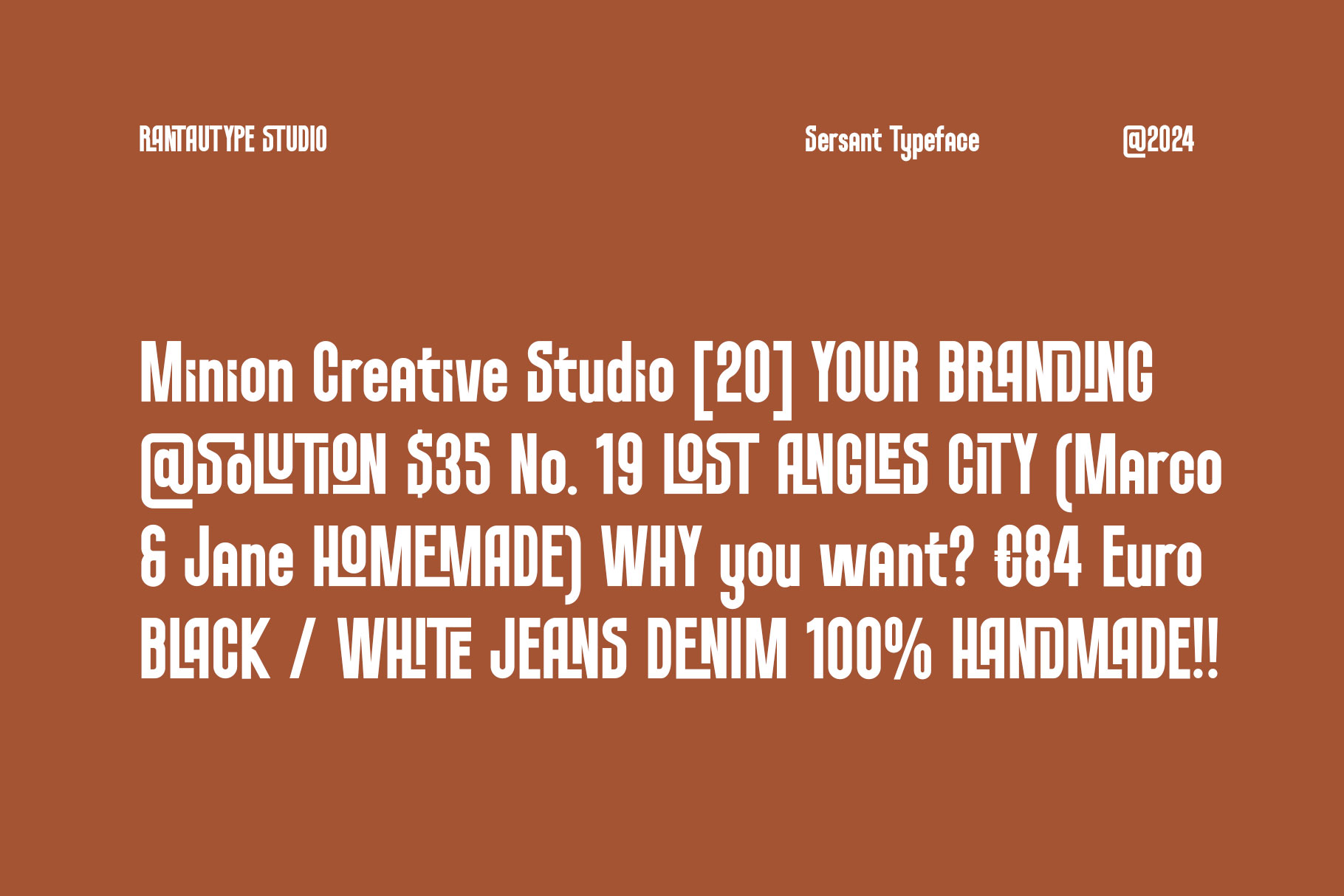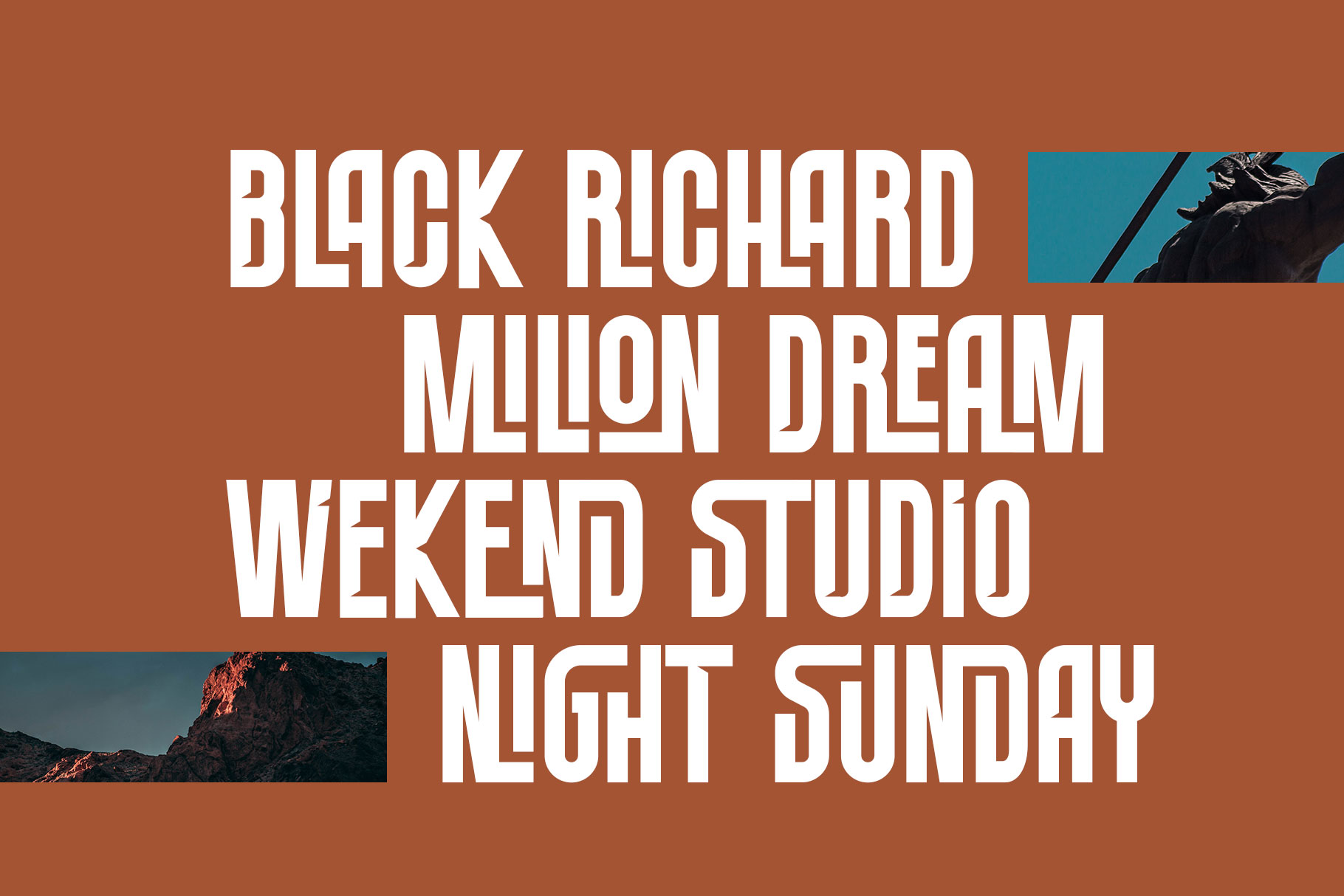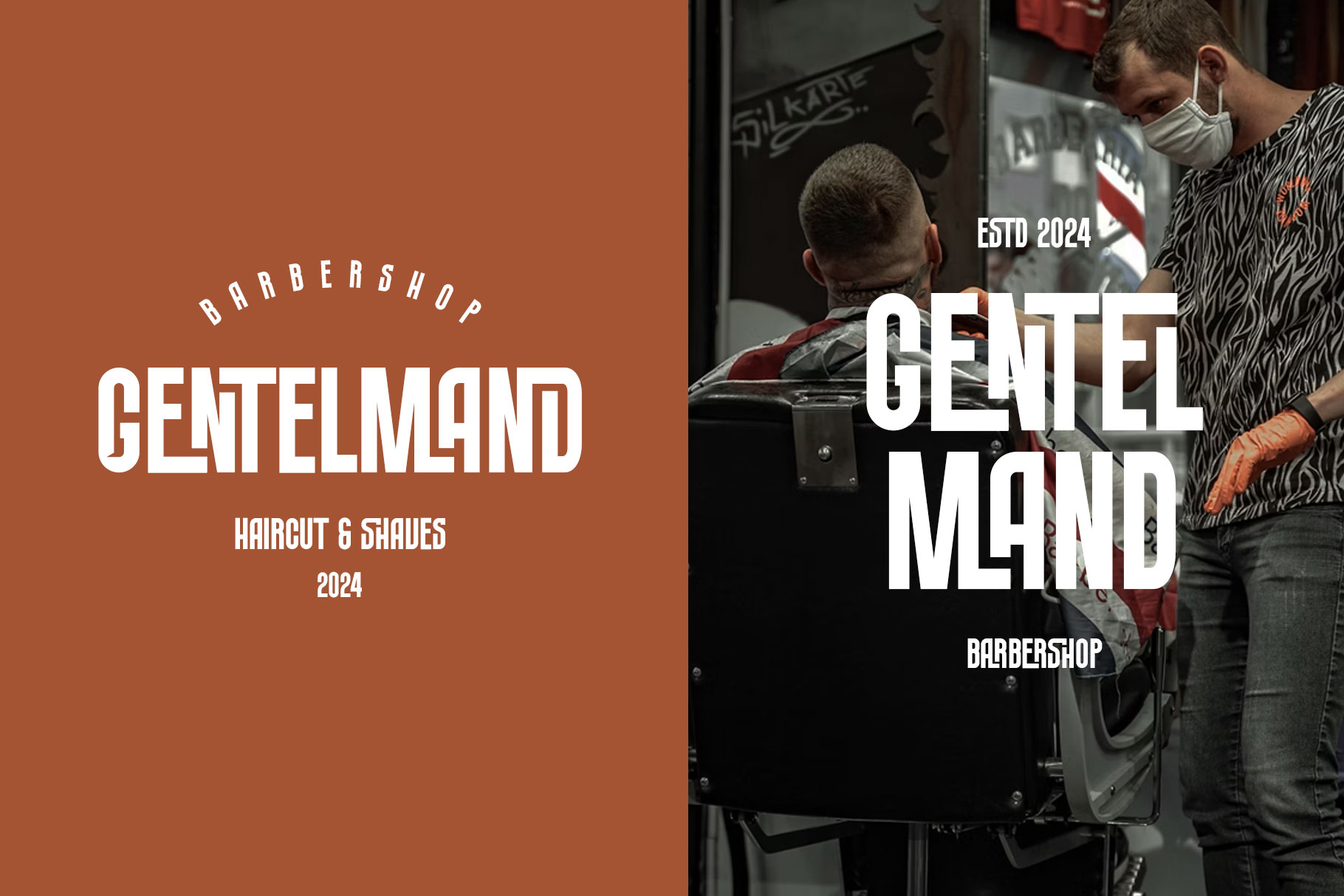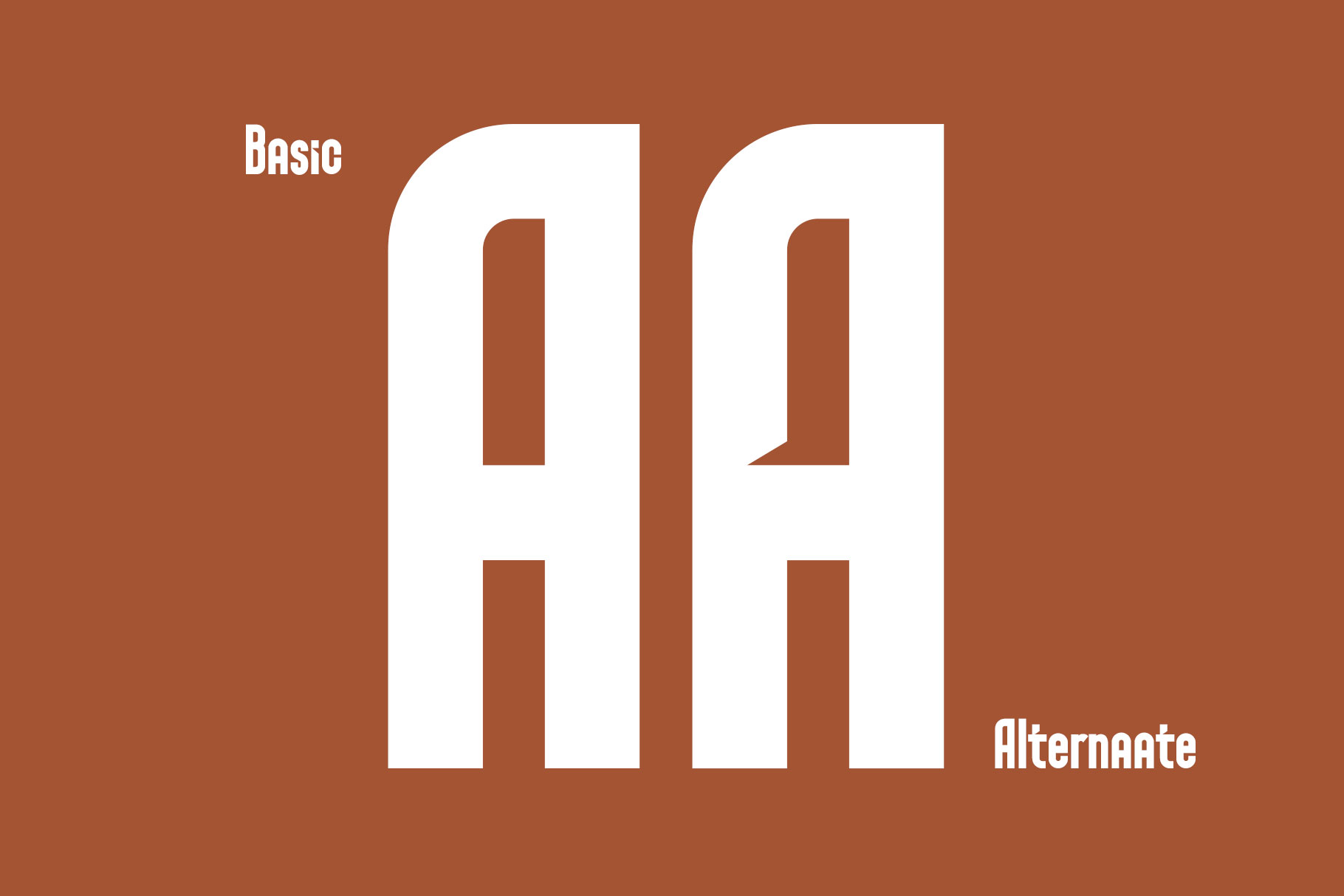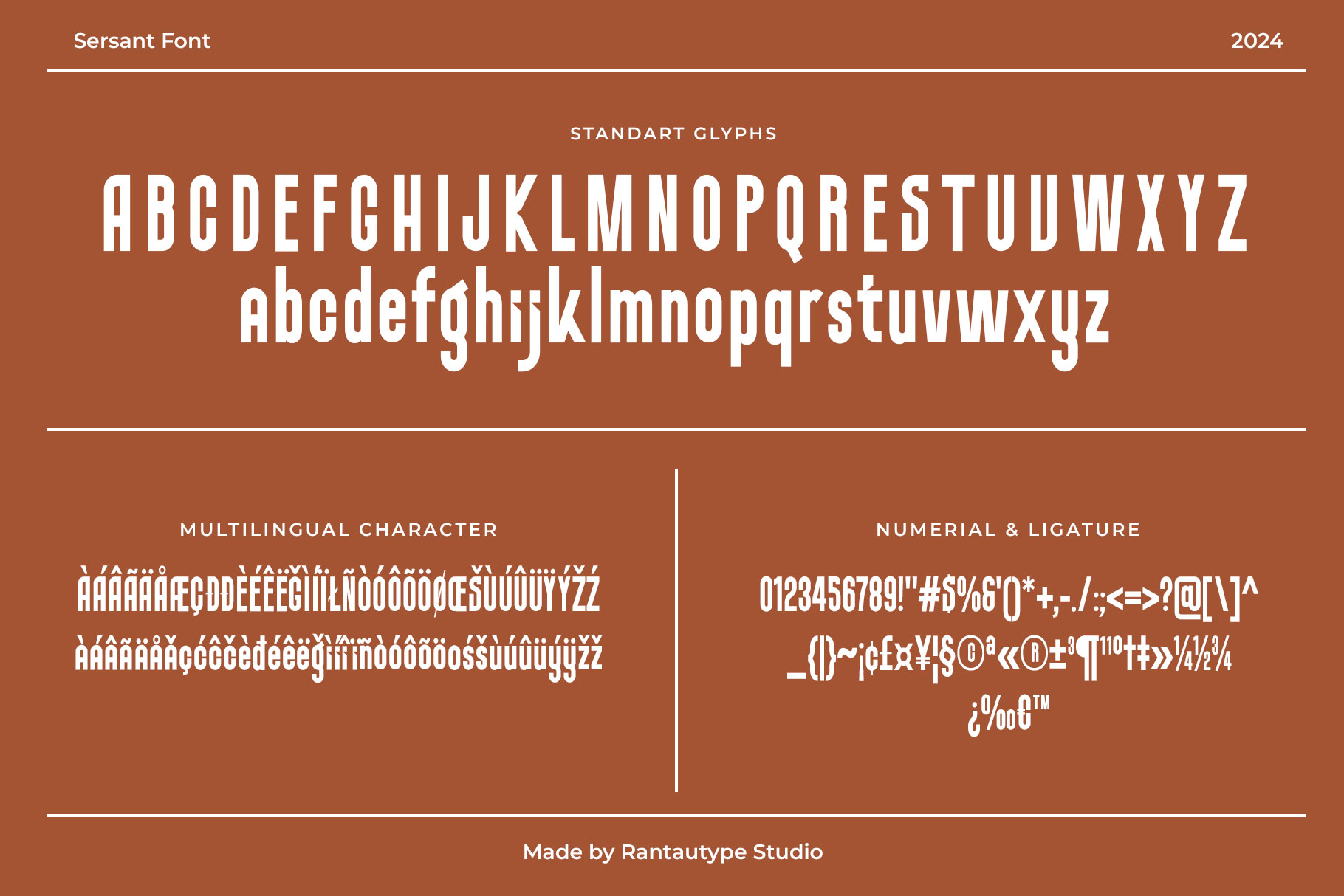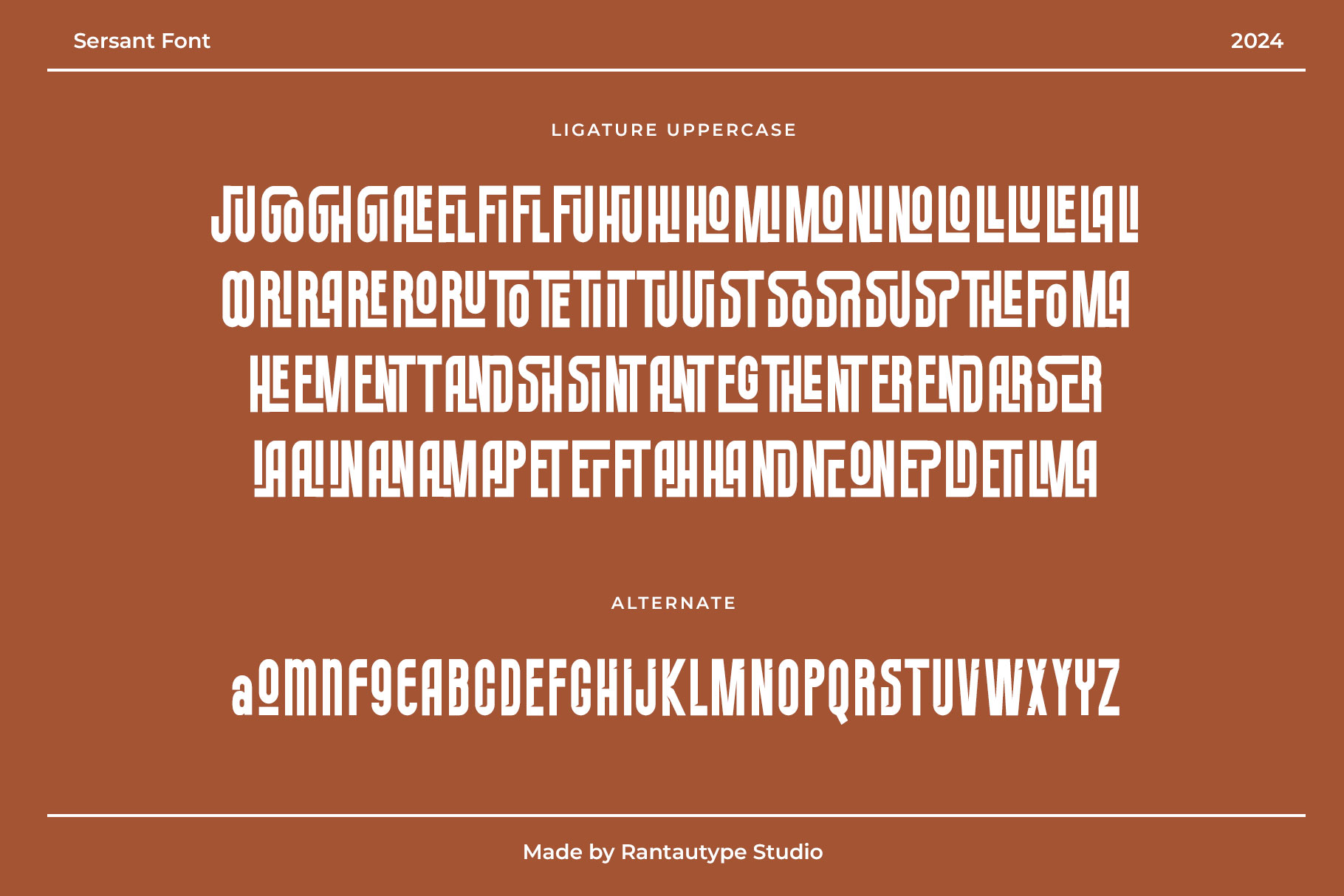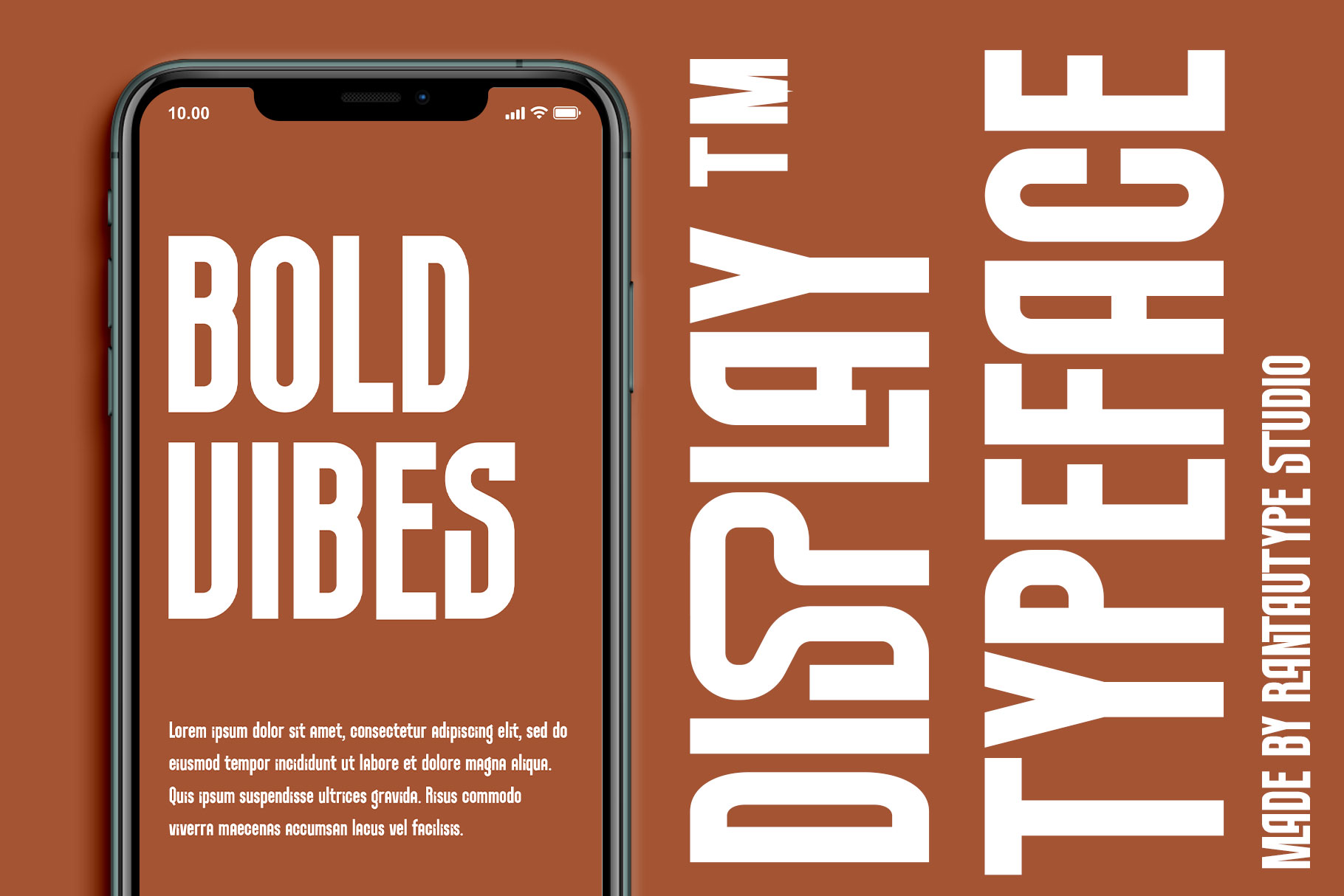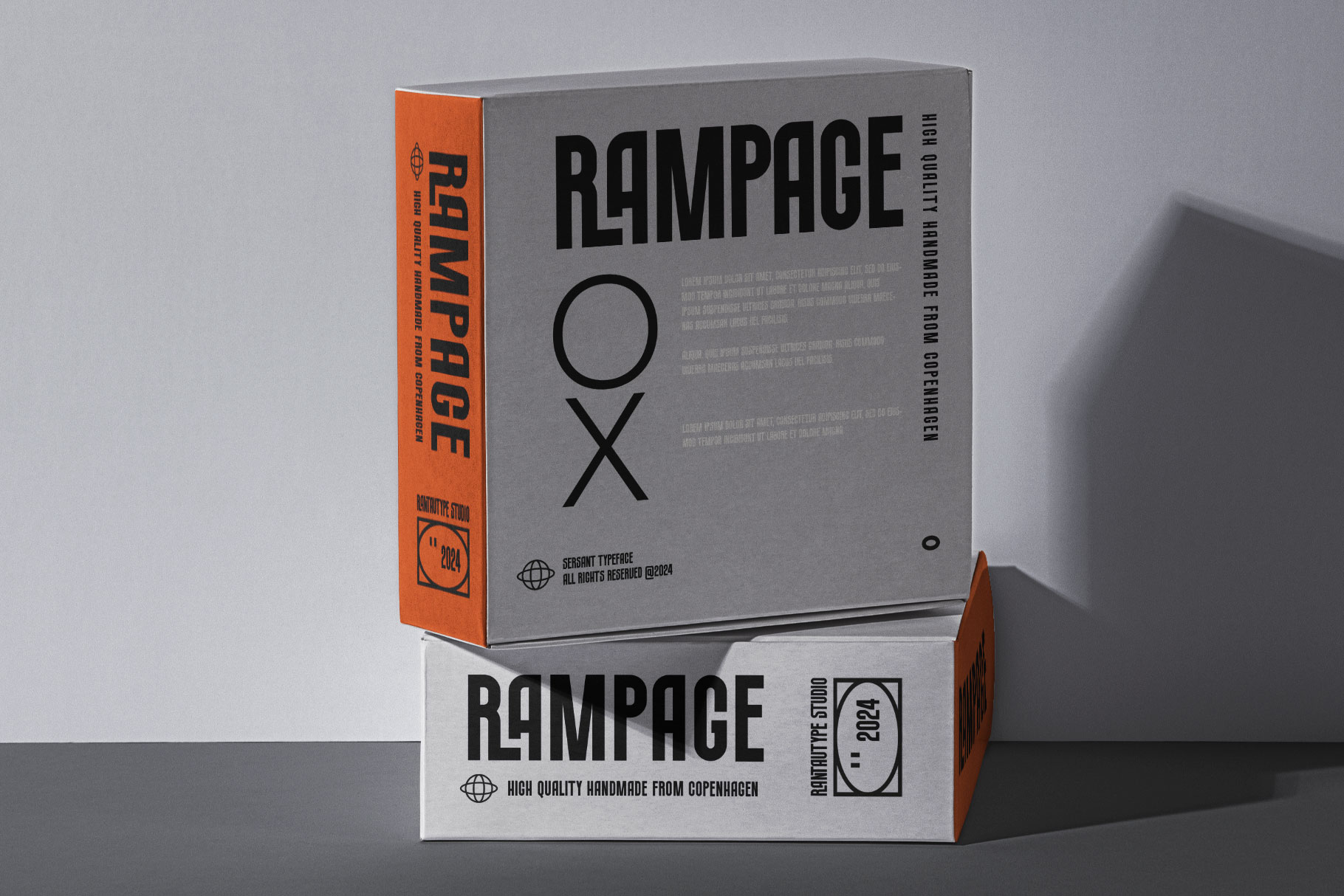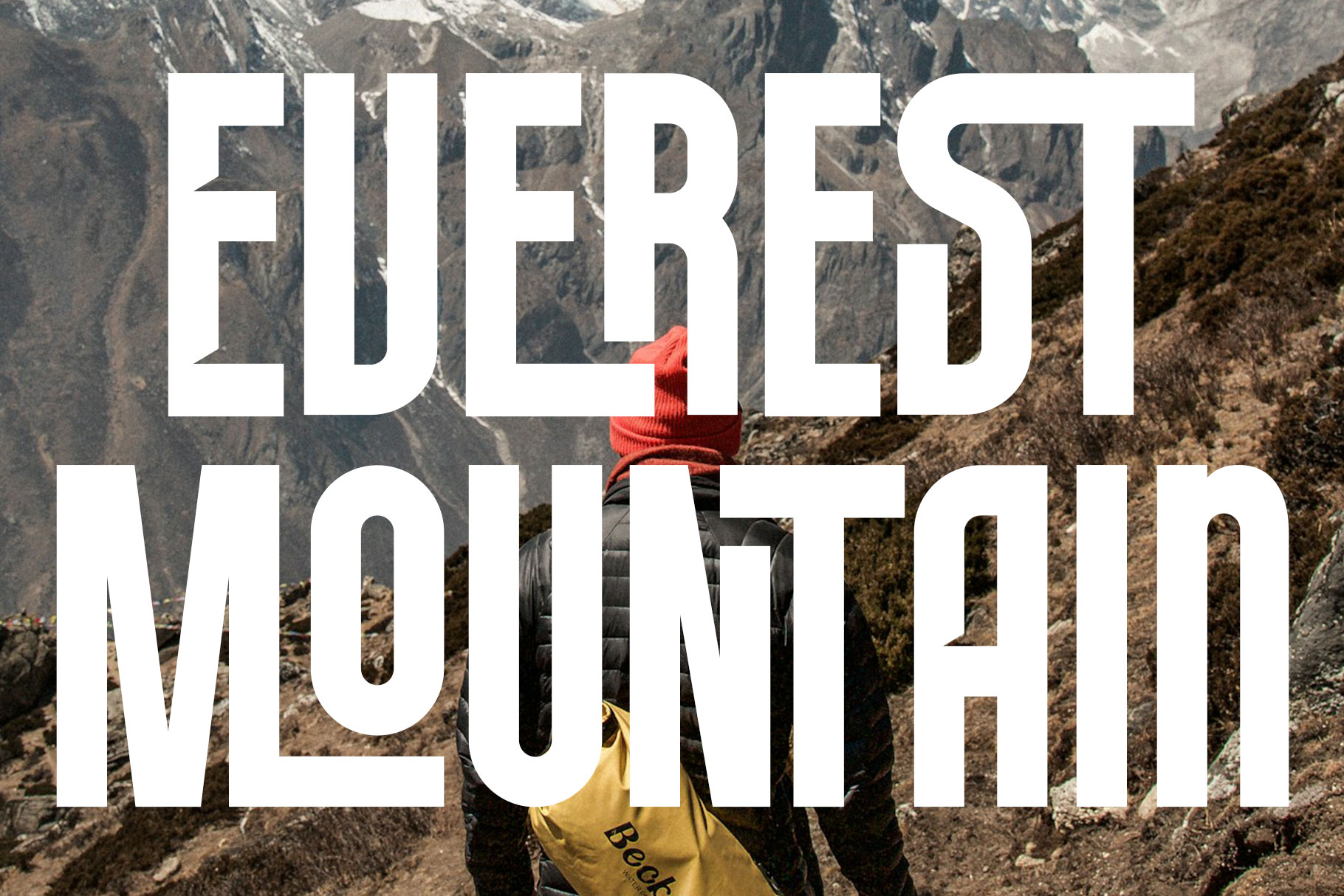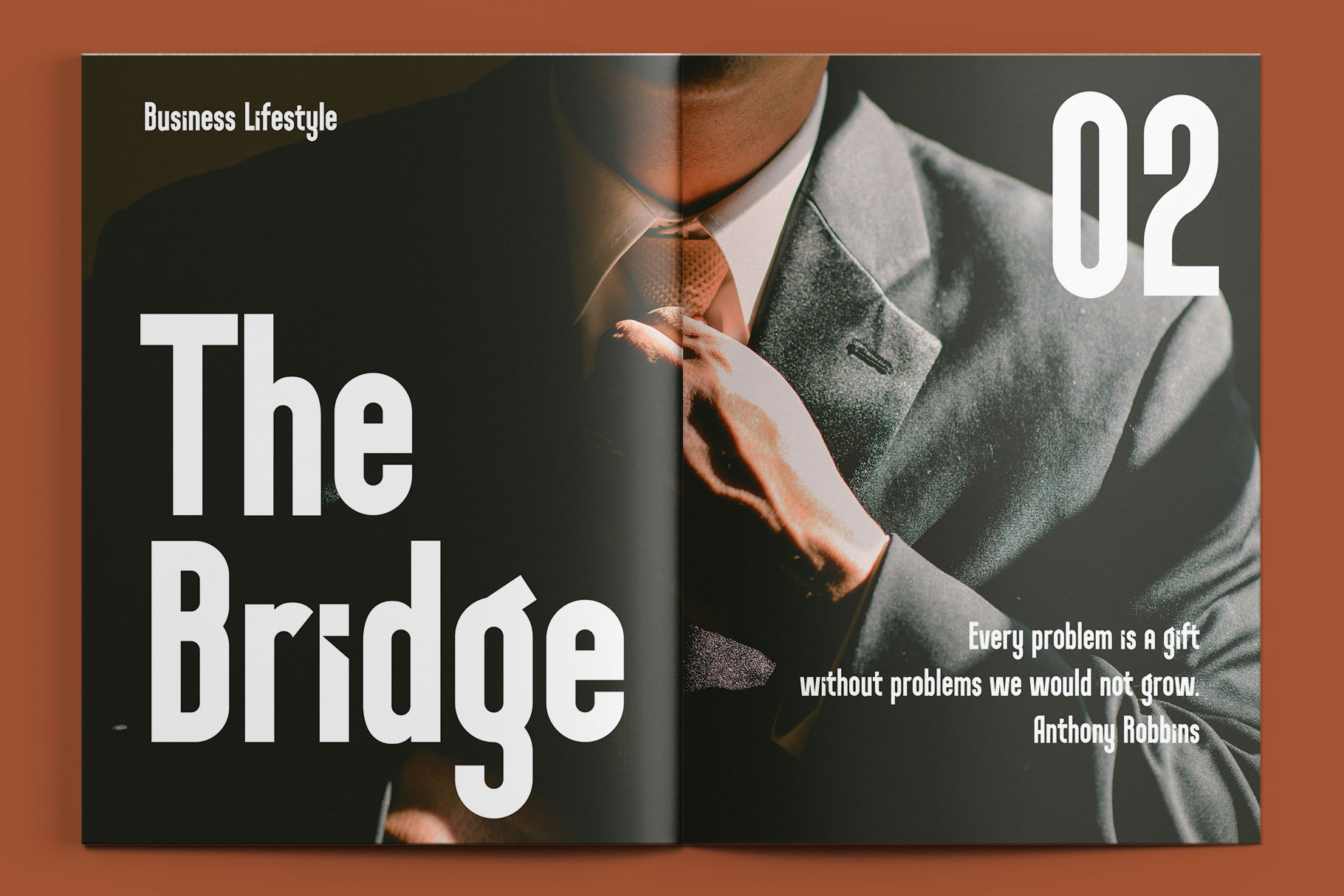
Sersant Modern Condensed Font
Sersant is a modern bold condensed font with strong and tall form. Sersant coming with sophisticated ligature make your desing project more attractive and stand out.
Sersant is a perfectly choice for any creative endeavor, chic, lifestyle design such as logos, advertisements, watermark on photography, stationery, branding project, display and magazine, invitation, corporate brand, product design, label, business project and many other project with modern touch.